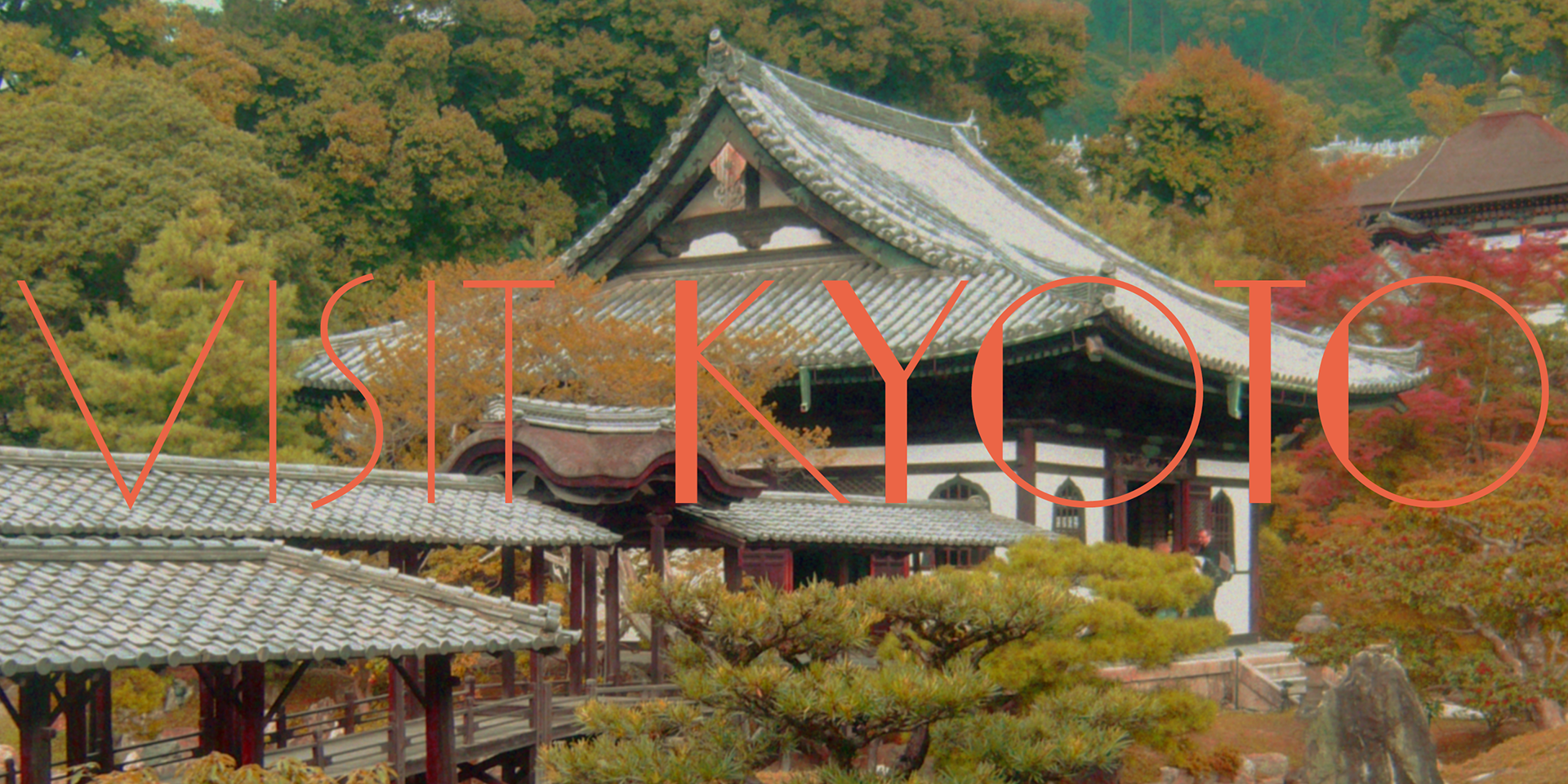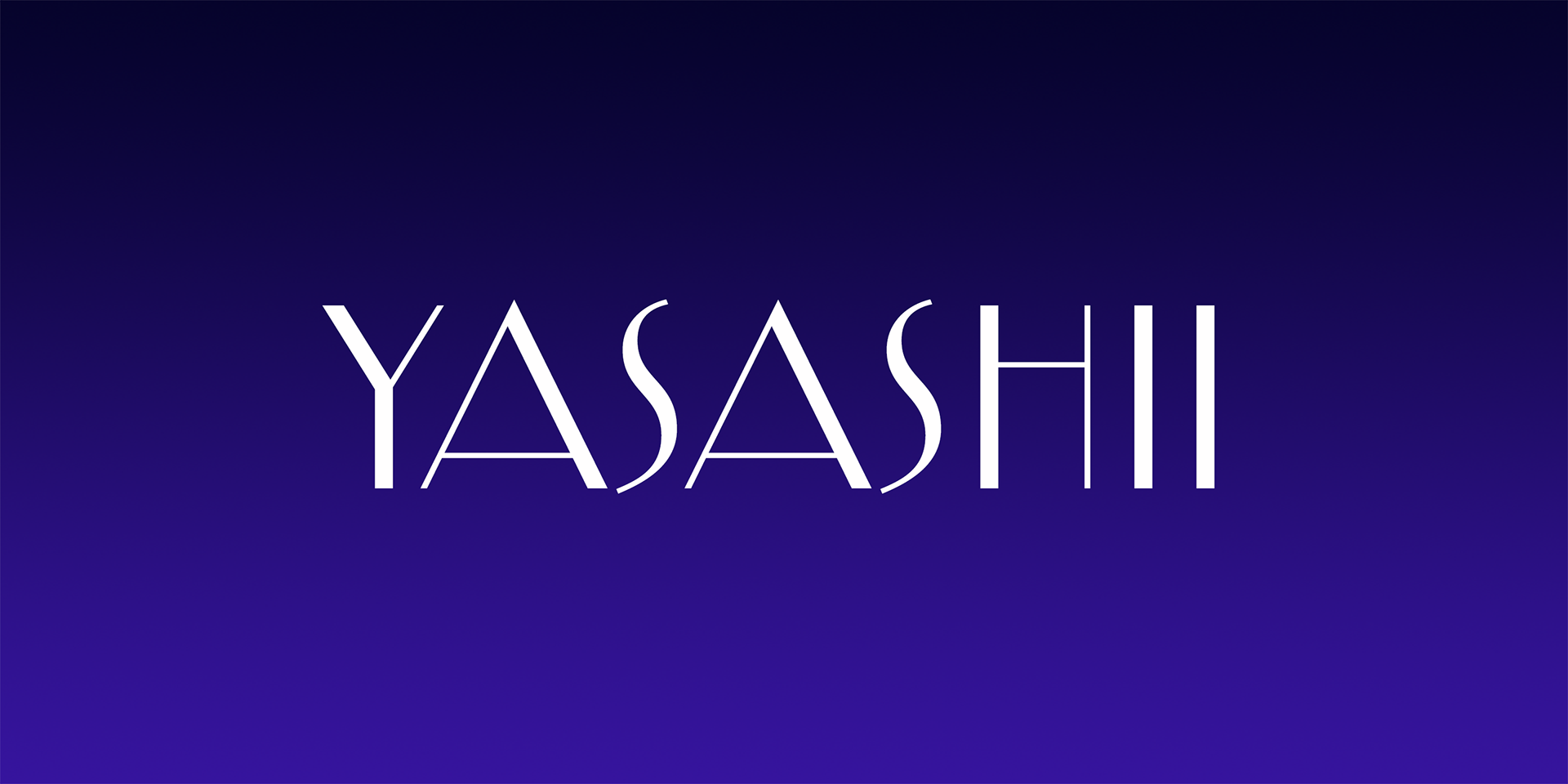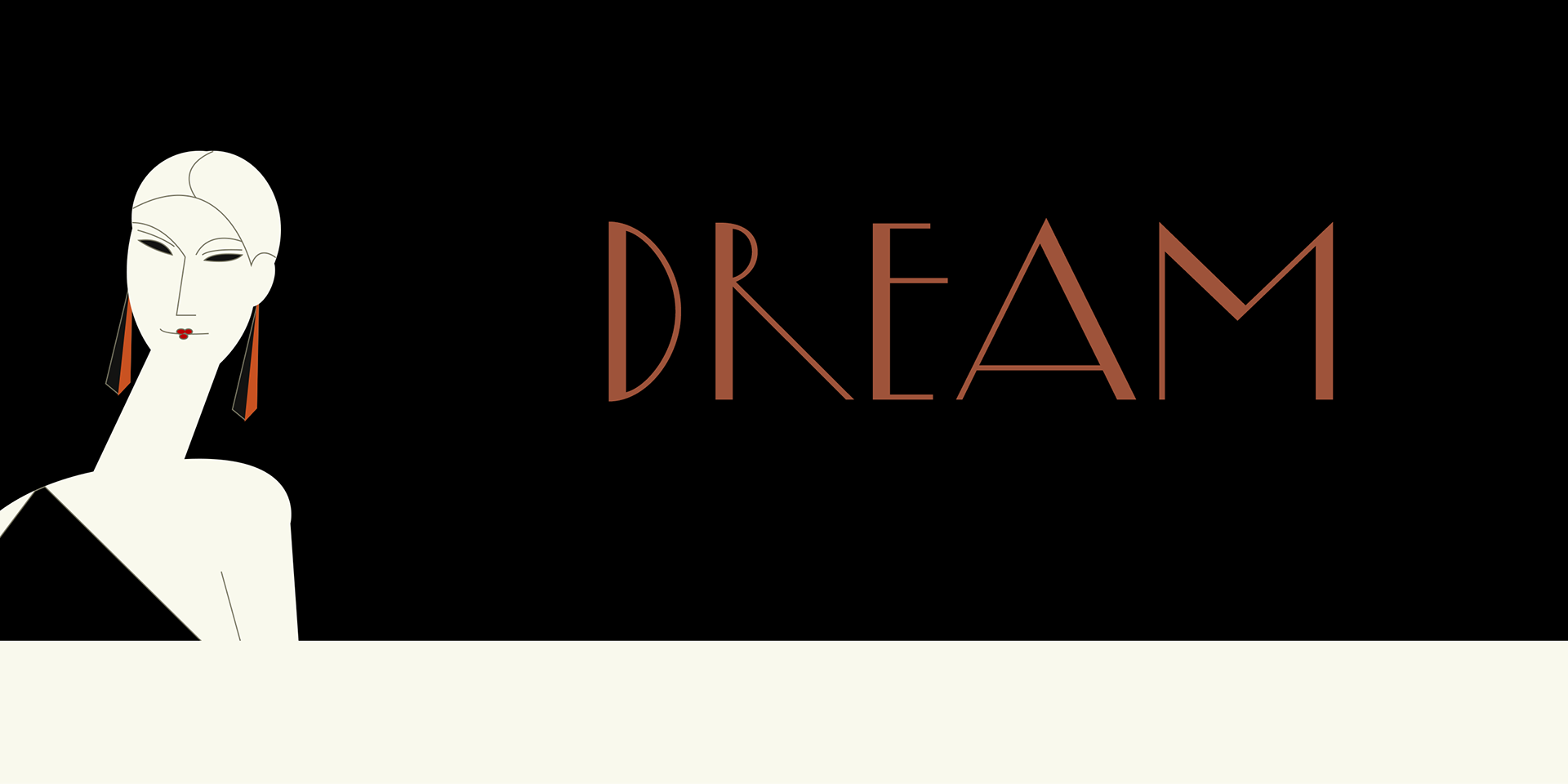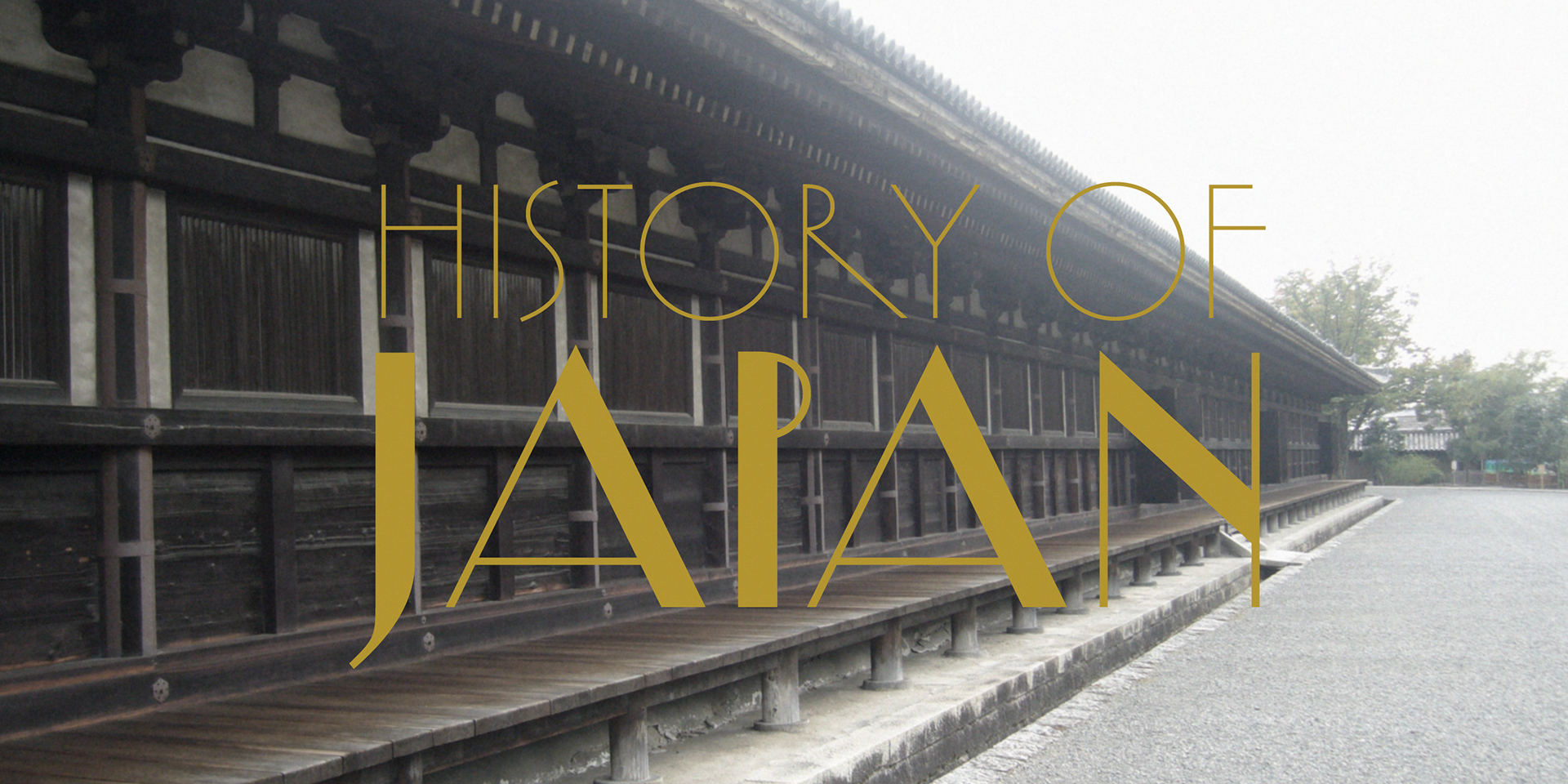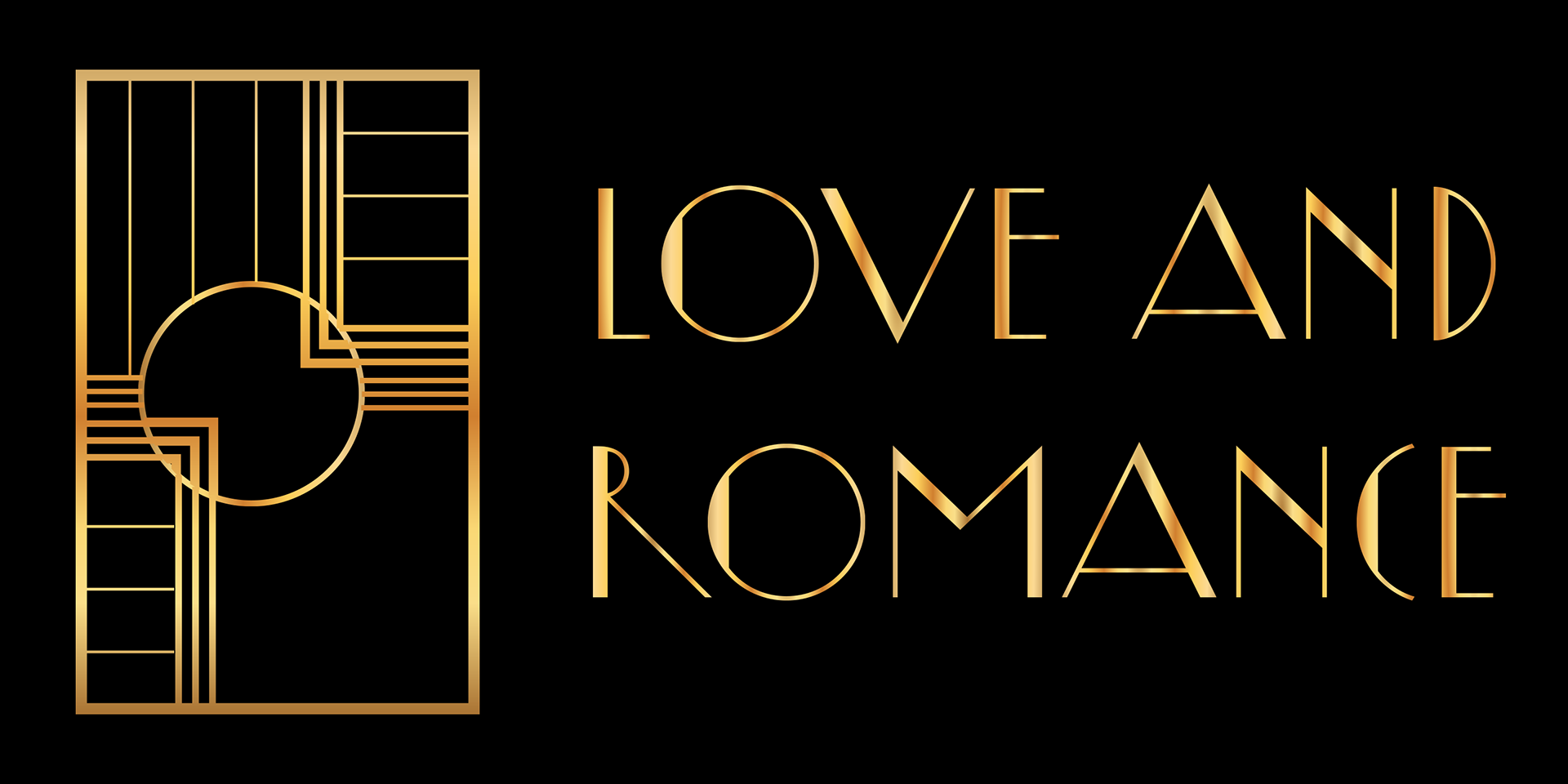
Yasashii
Yasashii is an Art Deco–inspired font rooted in Japanese design aesthetics from cosmetic packaging and posters dating back to the late 19th to early 20th century.
Delicate yet structured, it brings a nostalgic charm to modern design.